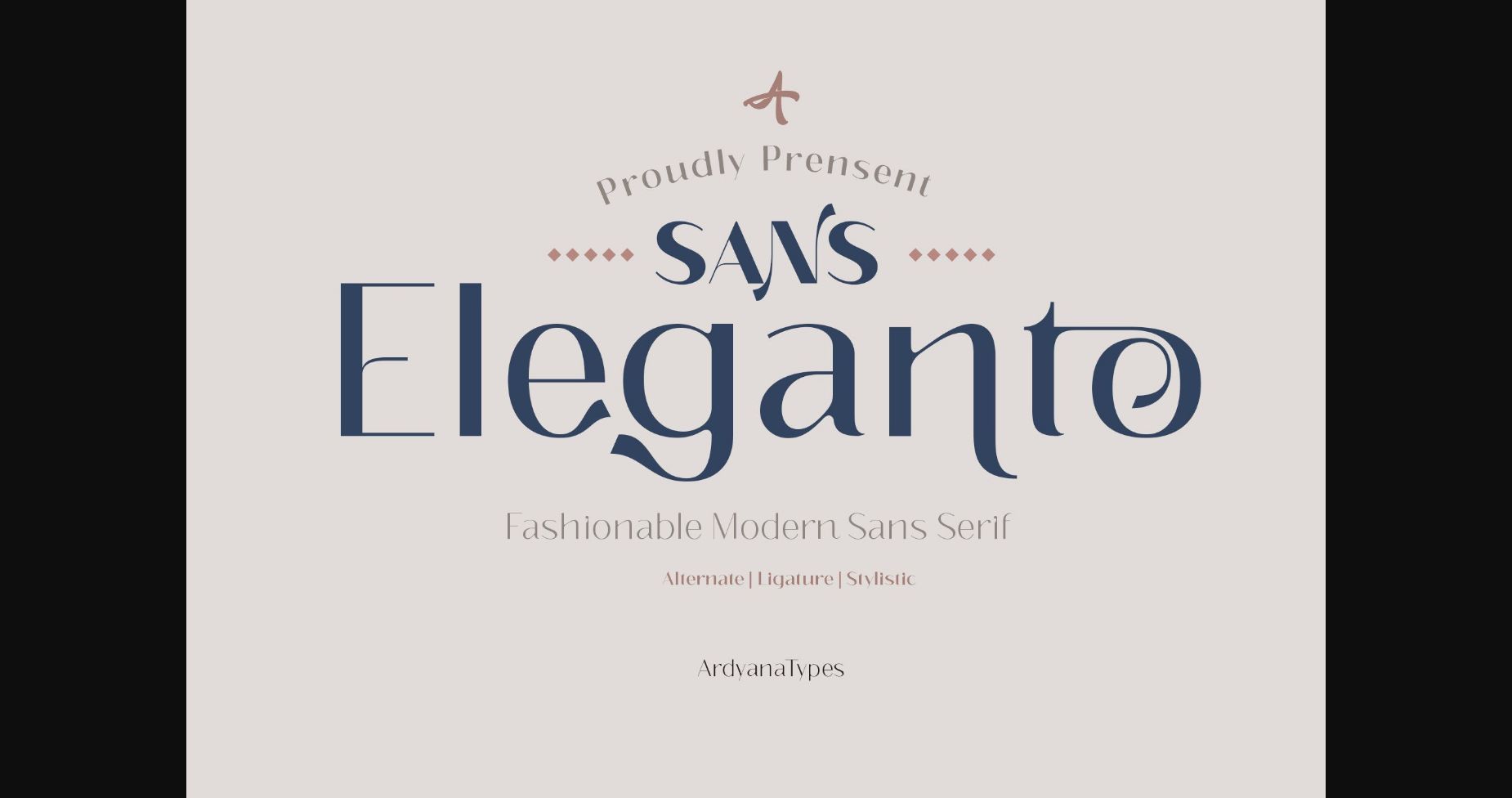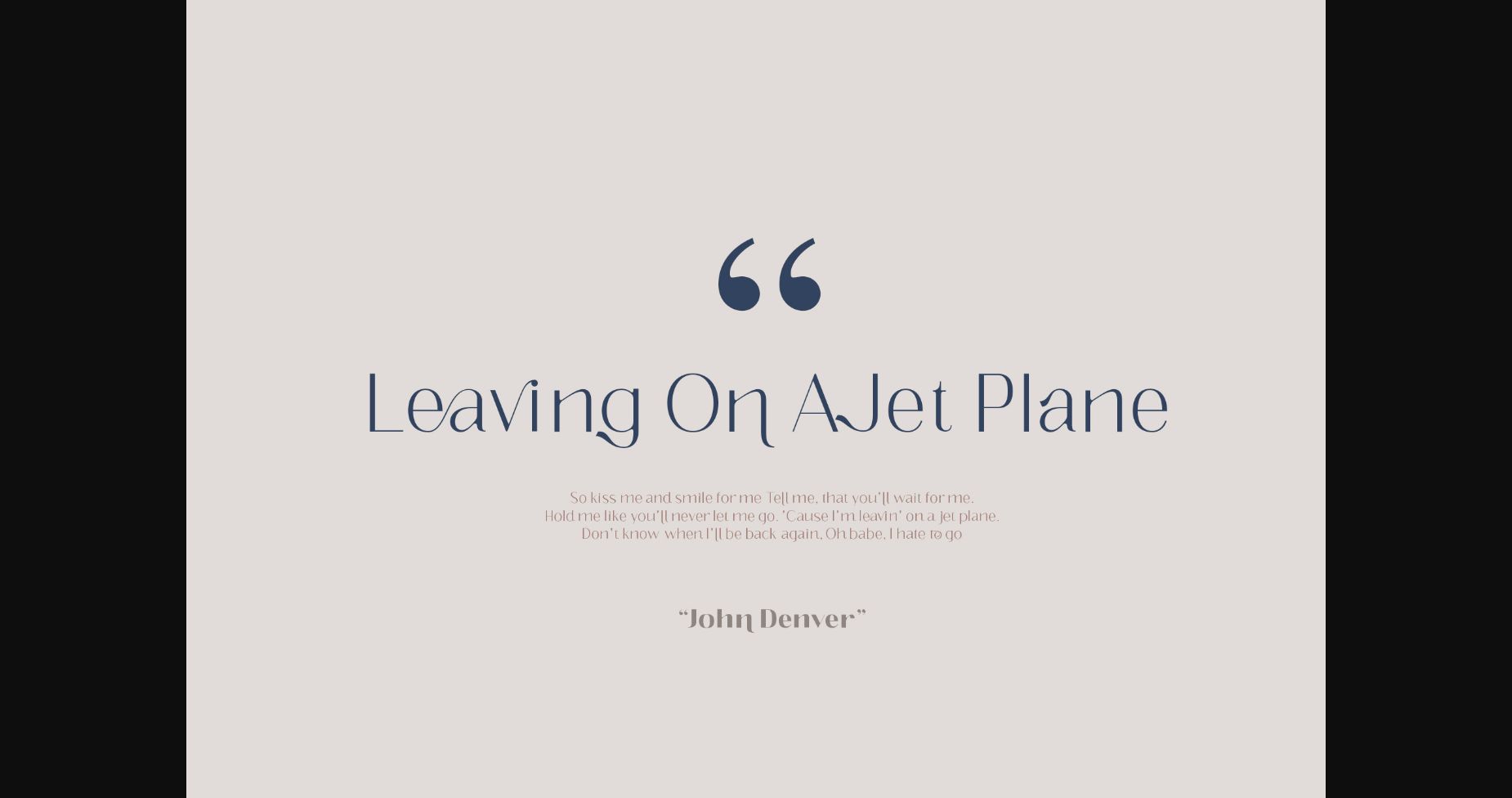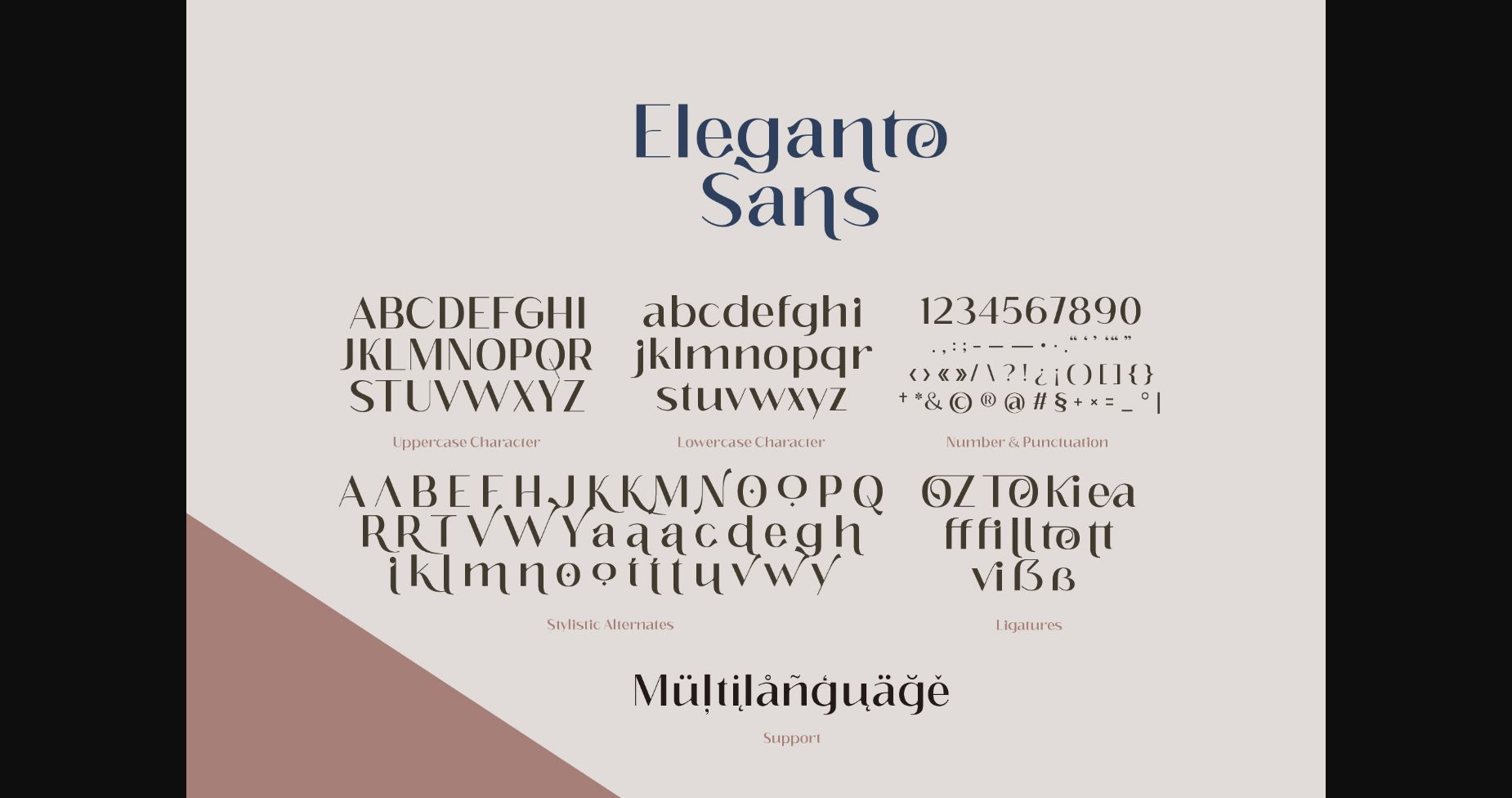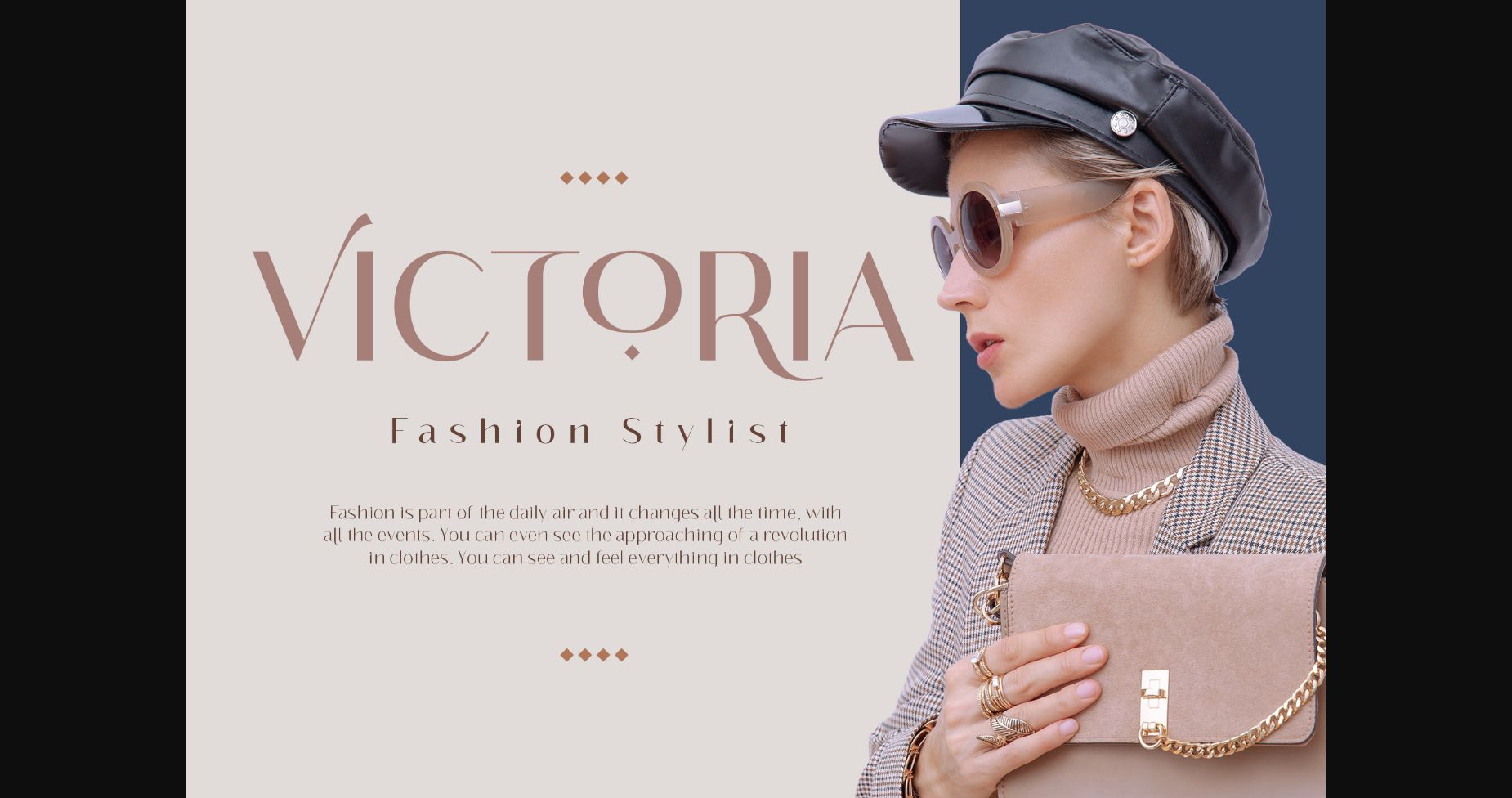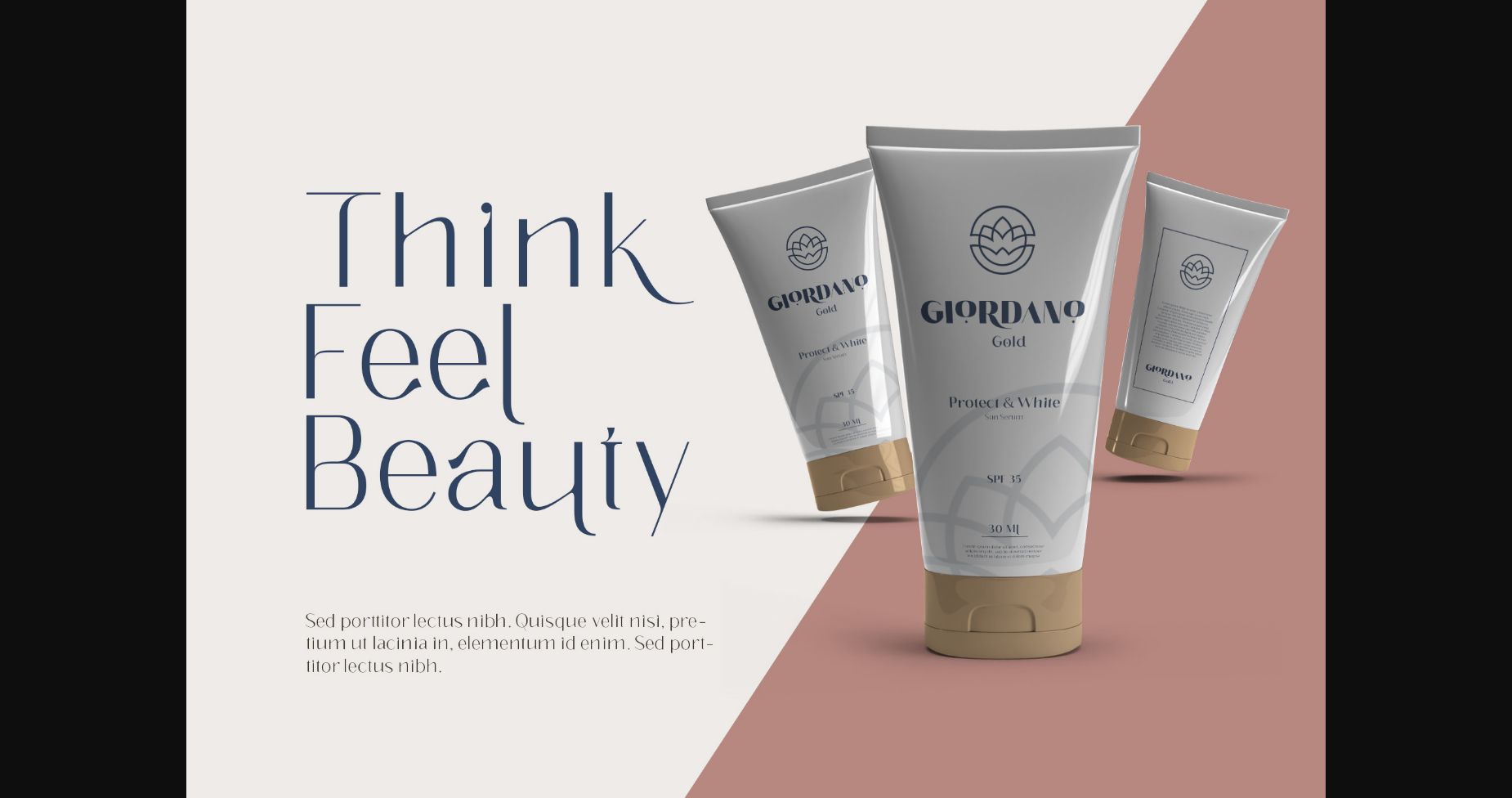
About Eleganto Font
Eleganto is a modern and distinct sans serif font. Fall for its ravishing style and use it to create gorgeous wedding invitations, beautiful stationary art, eye-catching social media posts, and much more!